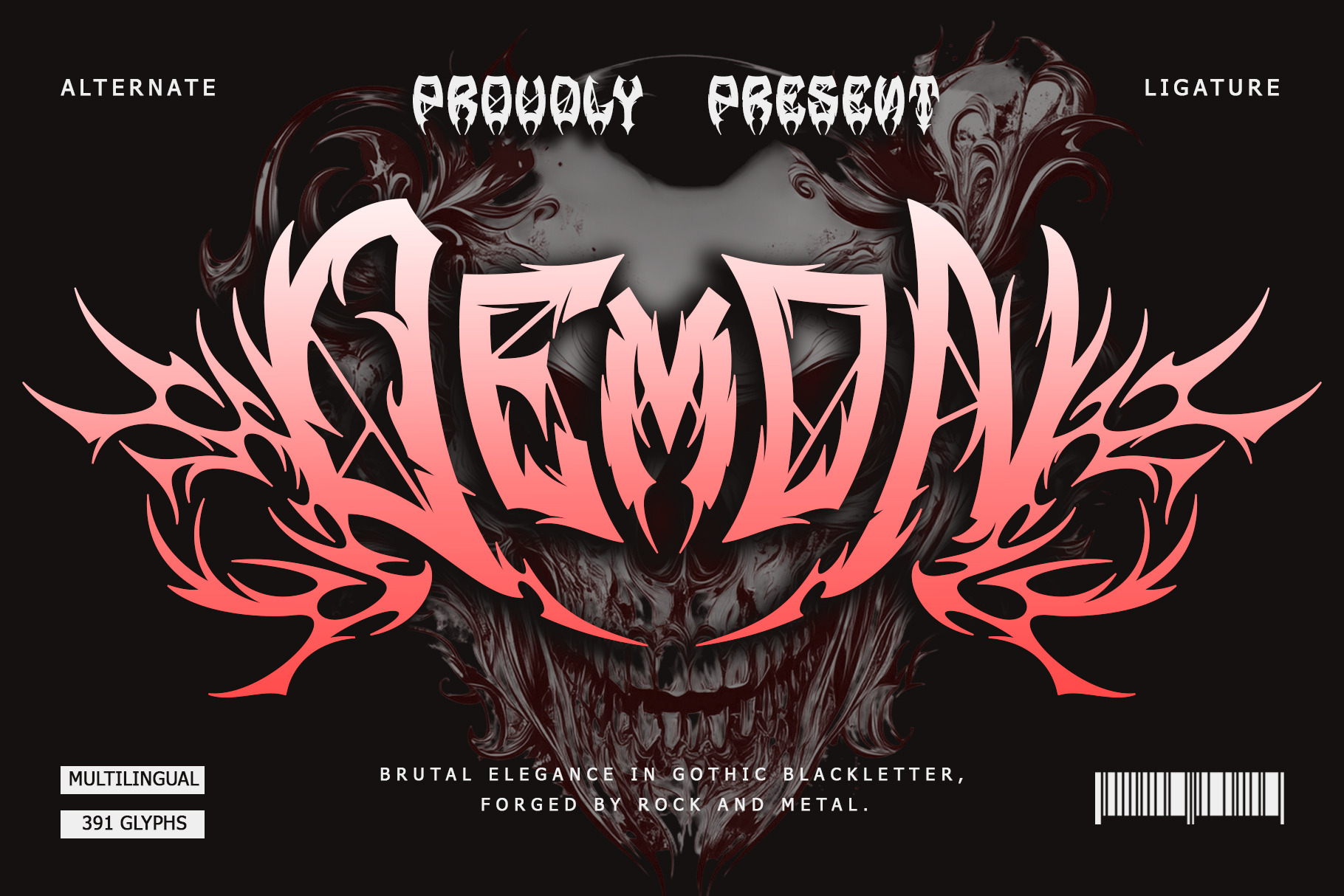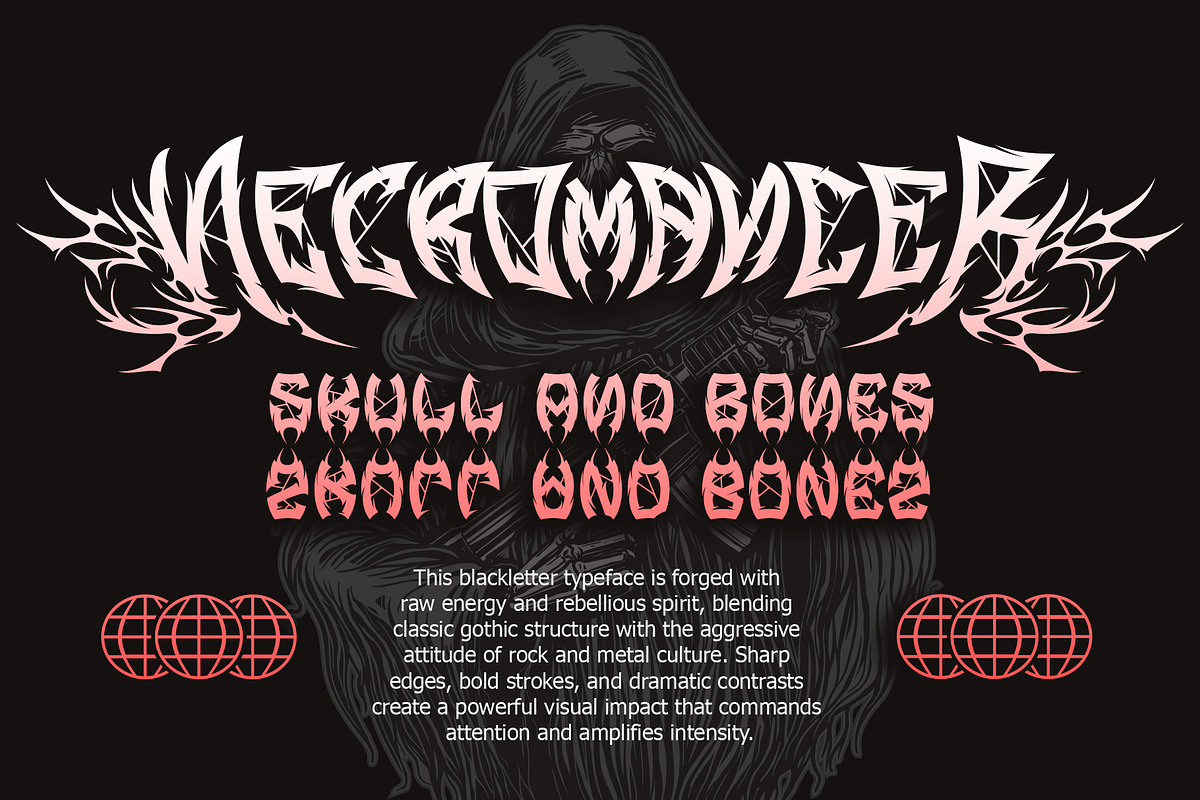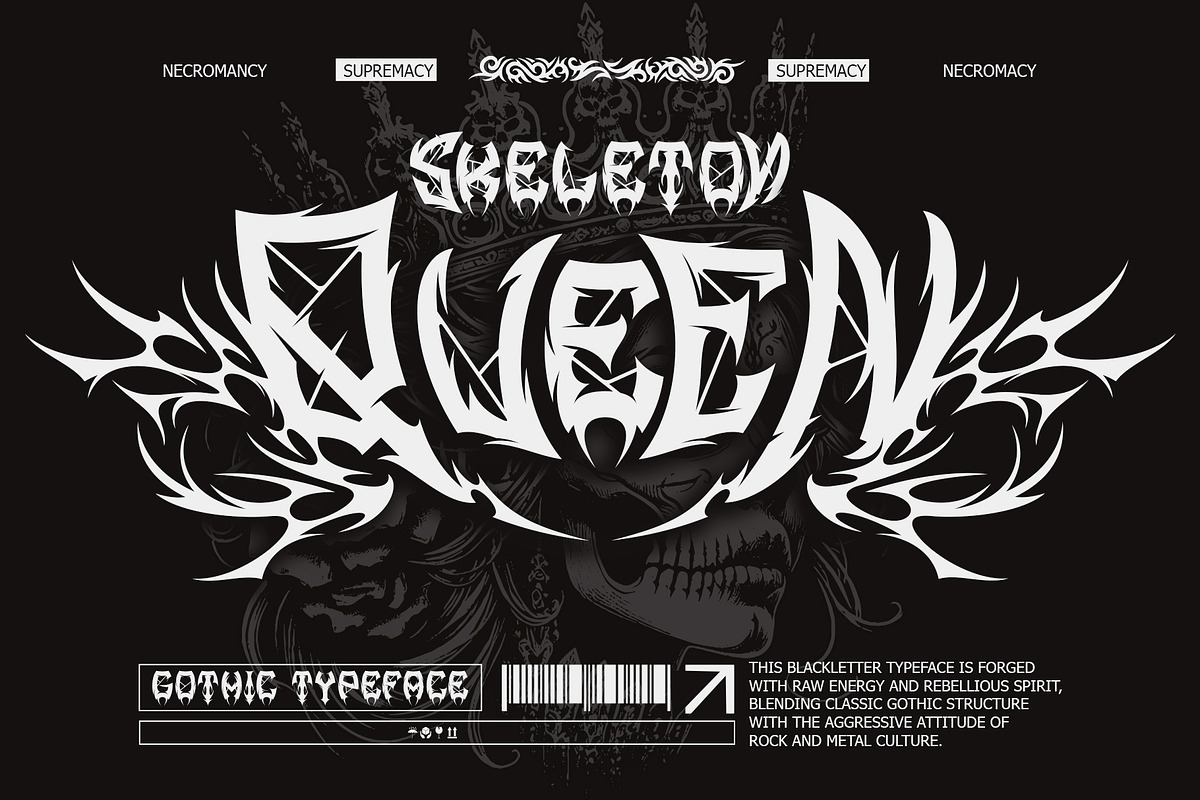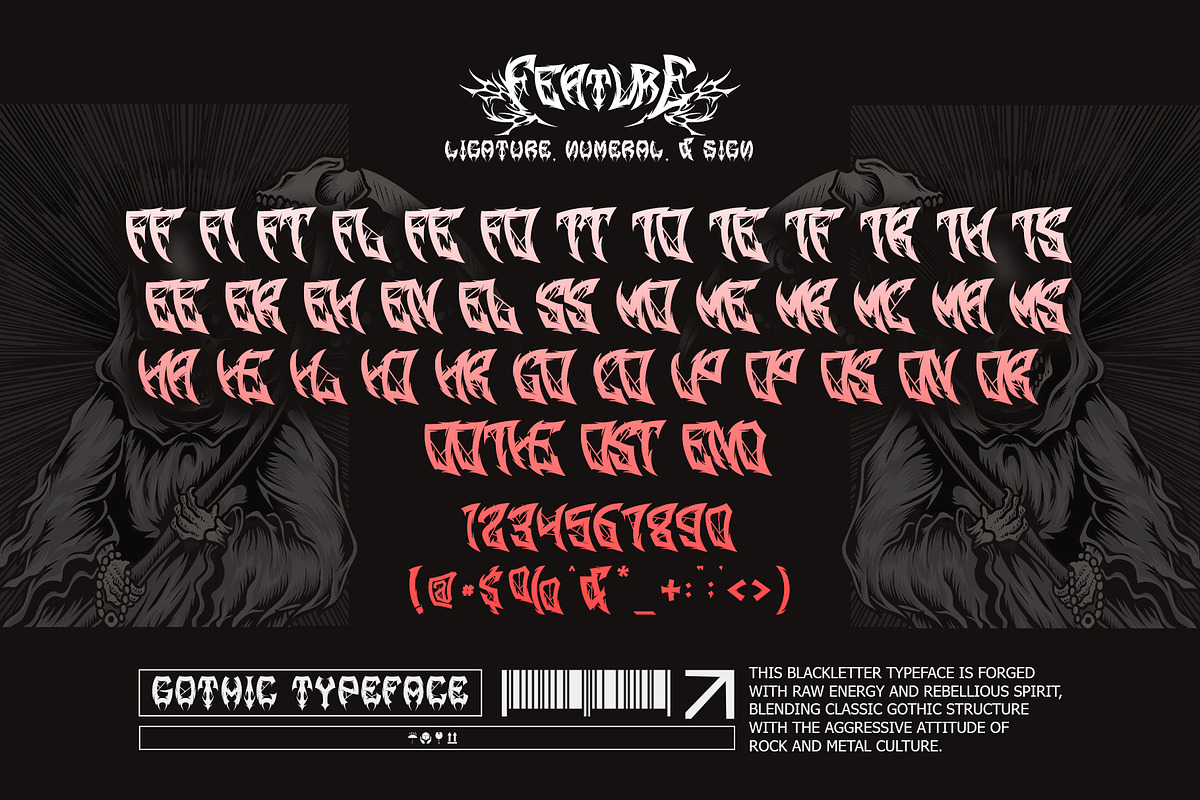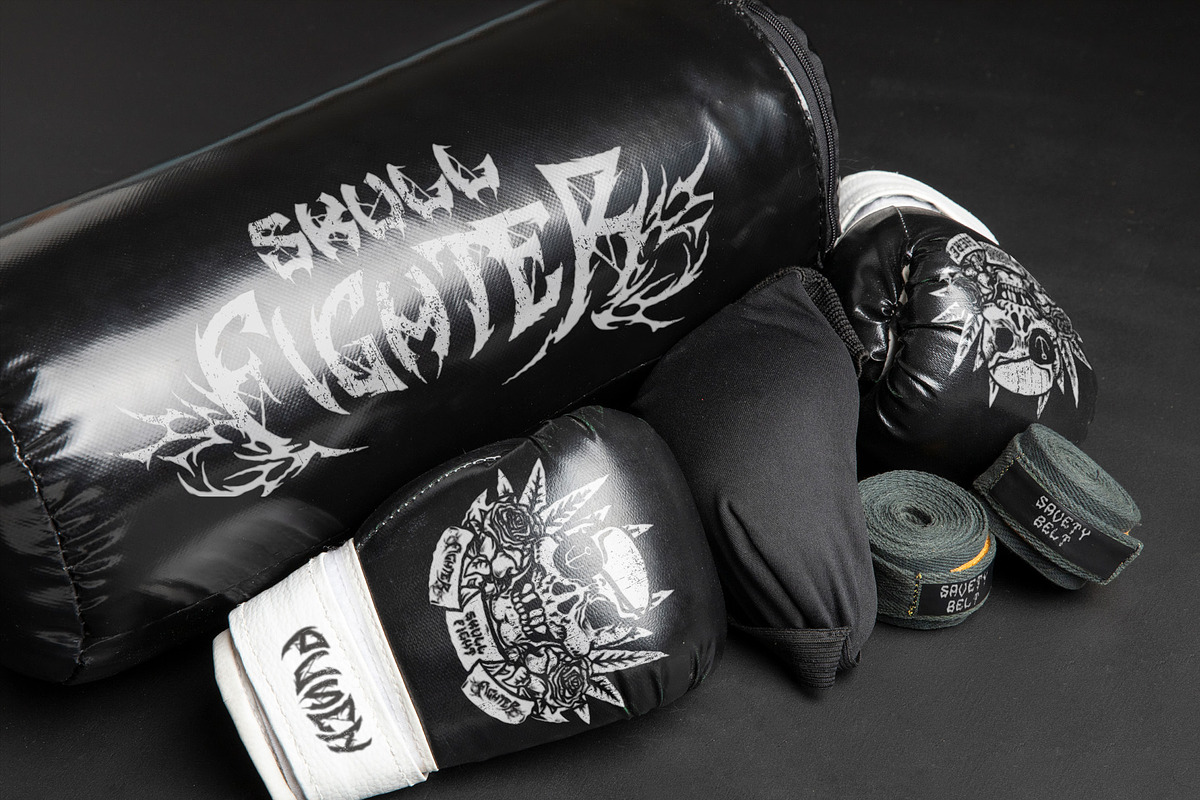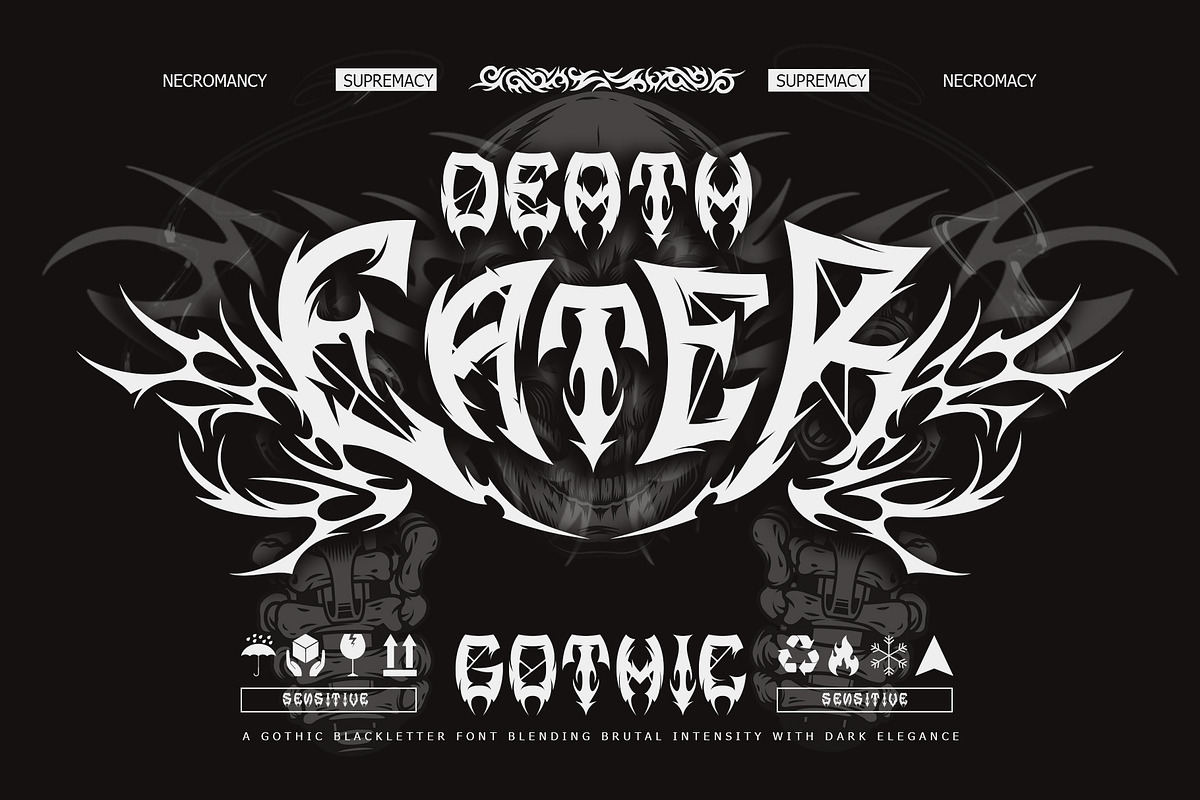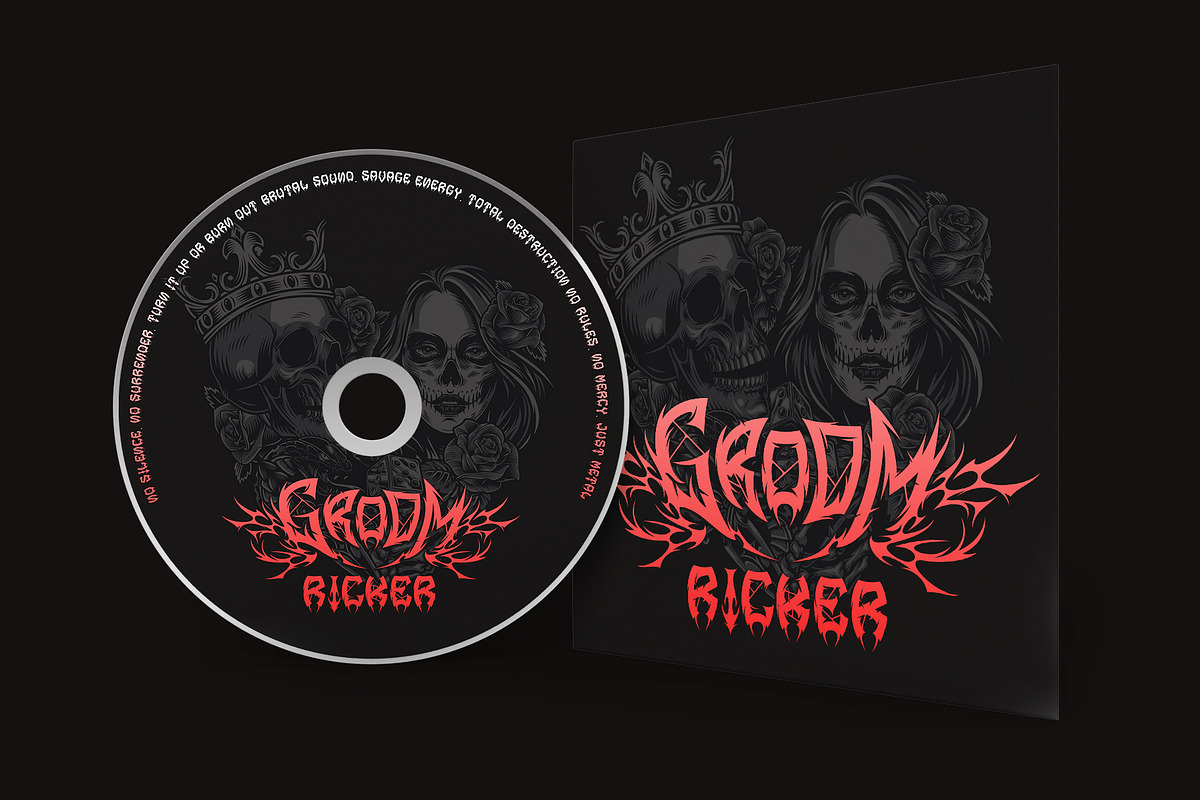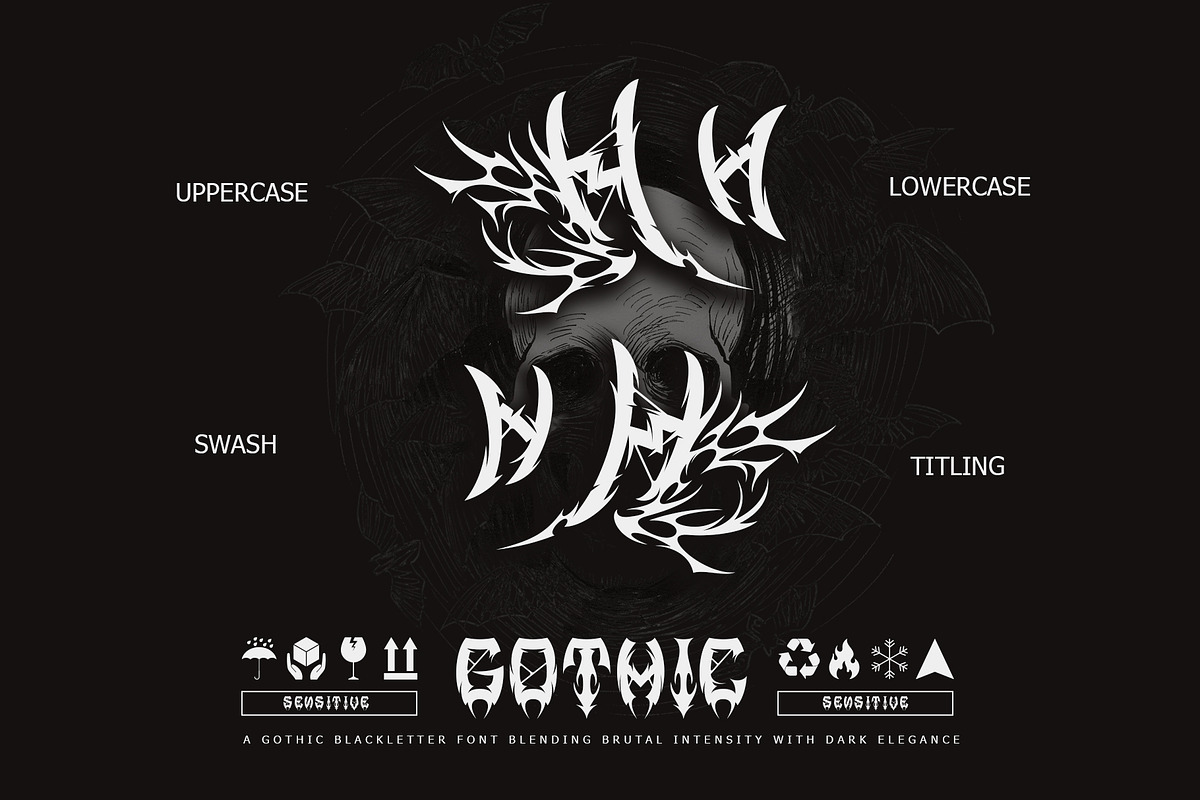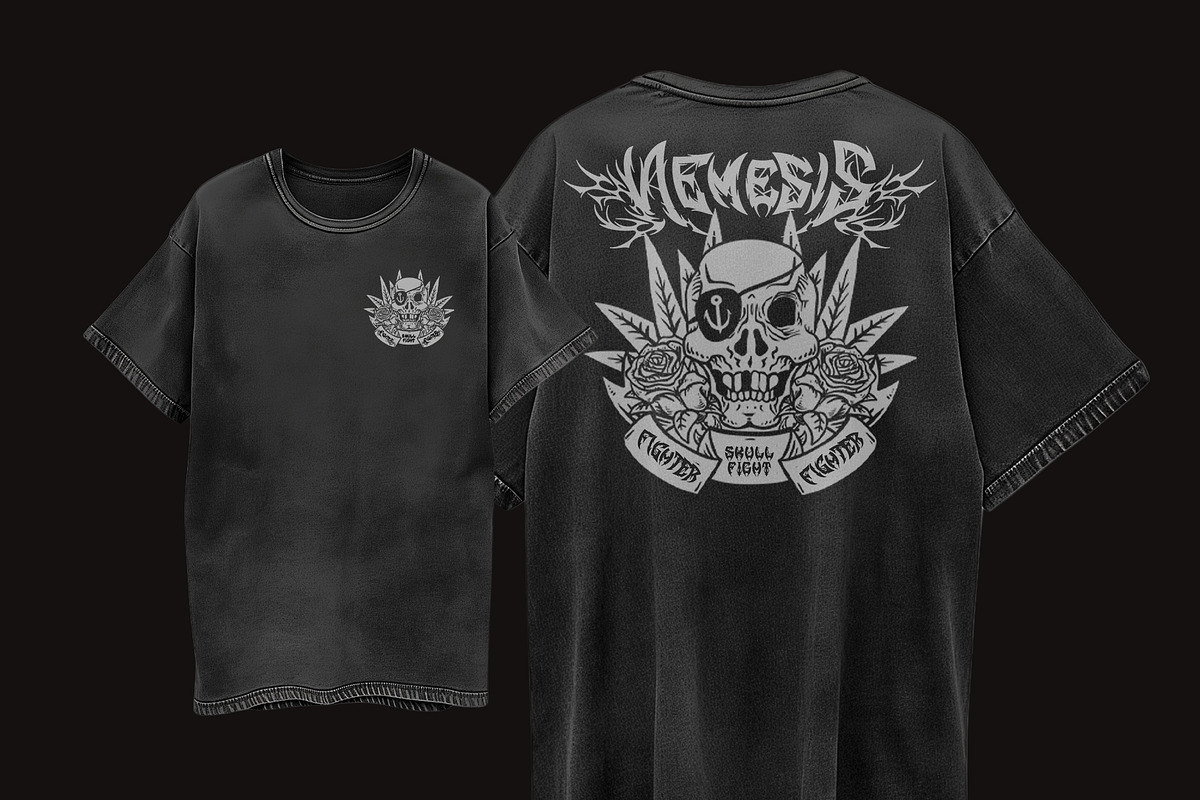
Demon Crown – Gothic Font
Demon Crown is an extreme gothic blackletter font forged in darkness, power, and ritual. Featuring razor-sharp strokes, aggressive curves, and a commanding symmetrical presence, this font embodies domination, chaos, and dark authority in every letter. Inspired by occult symbols, cathedral shadows, and the raw energy of metal culture, Demon Crown transforms typography into a visual force that demands attention. Perfect for band logos, album covers, dark fantasy titles, game branding, tattoo designs, and cinematic artwork, it delivers brutal elegance with unmistakable impact. Let Demon Crown rule your designs with unholy strength, where every word stands crowned in darkness.
- Support multilingual; ä ö ü Ä Ö Ü ß ¿ ¡
- uppercase letters
- Alternate, swash, titling, & Ligature